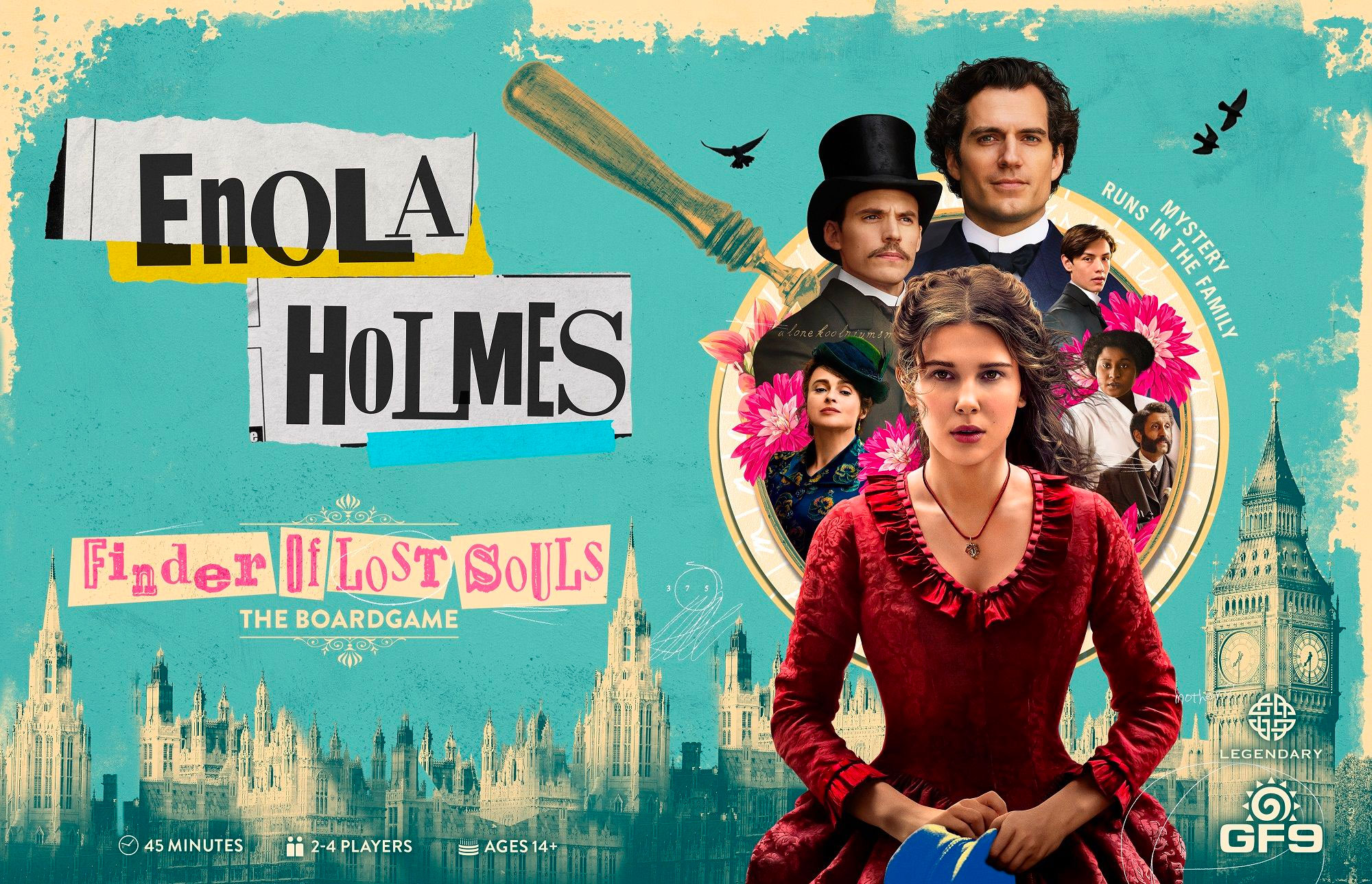
Enola Holmes Font
Enola Holmes Font - Archive of freely downloadable fonts. Browse by alphabetical listing, by style, by author or by popularity. “bodoni lt pro roman” and “rhode medium condensed” is the font used in enola holmes poster. You can edit it to. This text font was made using instafonts.io. “enola holmes” typography is an enigmatic, newspaper cutting style font which offers an interesting riddle fitting with the movie`s storyline. All the lowercase letters have very different rules which give them an interesting look. Fontget has the largest selection of sherlock holmes fonts and the best sherlock holmes generator in the marketplace. What font was used in poster? “enola holmes” typography is an enigmatic, newspaper cutting style font which offers an interesting riddle fitting with the movie`s.
“enola holmes” typography is an enigmatic, newspaper cutting style font which offers an interesting riddle fitting with the movie`s storyline. This text font was made using instafonts.io. Archive of freely downloadable fonts. “bodoni lt pro roman” and “rhode medium condensed” is the font used in enola holmes poster. All the lowercase letters have very different rules which give them an interesting look. Fontget has the largest selection of sherlock holmes fonts and the best sherlock holmes generator in the marketplace. You can edit it to. “enola holmes” typography is an enigmatic, newspaper cutting style font which offers an interesting riddle fitting with the movie`s. What font was used in poster? Browse by alphabetical listing, by style, by author or by popularity.
“bodoni lt pro roman” and “rhode medium condensed” is the font used in enola holmes poster. “enola holmes” typography is an enigmatic, newspaper cutting style font which offers an interesting riddle fitting with the movie`s. All the lowercase letters have very different rules which give them an interesting look. This text font was made using instafonts.io. “enola holmes” typography is an enigmatic, newspaper cutting style font which offers an interesting riddle fitting with the movie`s storyline. What font was used in poster? Fontget has the largest selection of sherlock holmes fonts and the best sherlock holmes generator in the marketplace. Archive of freely downloadable fonts. Browse by alphabetical listing, by style, by author or by popularity. You can edit it to.
Browse by alphabetical listing, by style, by author or by popularity. What font was used in poster? Fontget has the largest selection of sherlock holmes fonts and the best sherlock holmes generator in the marketplace. “enola holmes” typography is an enigmatic, newspaper cutting style font which offers an interesting riddle fitting with the movie`s storyline. You can edit it to.
All the lowercase letters have very different rules which give them an interesting look. “enola holmes” typography is an enigmatic, newspaper cutting style font which offers an interesting riddle fitting with the movie`s. Browse by alphabetical listing, by style, by author or by popularity. This text font was made using instafonts.io. “bodoni lt pro roman” and “rhode medium condensed” is.
This text font was made using instafonts.io. “enola holmes” typography is an enigmatic, newspaper cutting style font which offers an interesting riddle fitting with the movie`s storyline. “enola holmes” typography is an enigmatic, newspaper cutting style font which offers an interesting riddle fitting with the movie`s. Archive of freely downloadable fonts. Browse by alphabetical listing, by style, by author or.
Archive of freely downloadable fonts. “enola holmes” typography is an enigmatic, newspaper cutting style font which offers an interesting riddle fitting with the movie`s. This text font was made using instafonts.io. All the lowercase letters have very different rules which give them an interesting look. Browse by alphabetical listing, by style, by author or by popularity.
Browse by alphabetical listing, by style, by author or by popularity. All the lowercase letters have very different rules which give them an interesting look. This text font was made using instafonts.io. Archive of freely downloadable fonts. What font was used in poster?
“bodoni lt pro roman” and “rhode medium condensed” is the font used in enola holmes poster. What font was used in poster? Browse by alphabetical listing, by style, by author or by popularity. This text font was made using instafonts.io. “enola holmes” typography is an enigmatic, newspaper cutting style font which offers an interesting riddle fitting with the movie`s.
“bodoni lt pro roman” and “rhode medium condensed” is the font used in enola holmes poster. Fontget has the largest selection of sherlock holmes fonts and the best sherlock holmes generator in the marketplace. You can edit it to. All the lowercase letters have very different rules which give them an interesting look. Archive of freely downloadable fonts.
Archive of freely downloadable fonts. “enola holmes” typography is an enigmatic, newspaper cutting style font which offers an interesting riddle fitting with the movie`s storyline. You can edit it to. Browse by alphabetical listing, by style, by author or by popularity. Fontget has the largest selection of sherlock holmes fonts and the best sherlock holmes generator in the marketplace.
“enola holmes” typography is an enigmatic, newspaper cutting style font which offers an interesting riddle fitting with the movie`s storyline. Fontget has the largest selection of sherlock holmes fonts and the best sherlock holmes generator in the marketplace. All the lowercase letters have very different rules which give them an interesting look. This text font was made using instafonts.io. You.
“Enola Holmes” Typography Is An Enigmatic, Newspaper Cutting Style Font Which Offers An Interesting Riddle Fitting With The Movie`s.
All the lowercase letters have very different rules which give them an interesting look. Archive of freely downloadable fonts. This text font was made using instafonts.io. “bodoni lt pro roman” and “rhode medium condensed” is the font used in enola holmes poster.